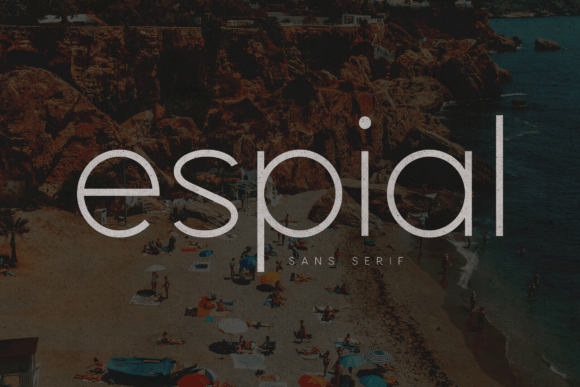
The Perfect Font for Minimalist Designers
Have you ever stared at a blank page, trying to bring your creative vision to life, only to be paralyzed by the endless font options? We’ve all been there. But what if you could tap into a timeless, elegant typographic foundation that effortlessly elevates your designs? Enter Espial Font, a clean and modern sans serif typeface designed specifically for designers who crave simplicity and sophistication.
As a go-to font for branding, logos, editorial layouts, and websites, Espial Font provides a versatile canvas for your creative expression. Whether you’re crafting a modern brand identity or building a stylish website, Espial Font’s clarity and elegance make it the perfect partner in crime. With Espial Font, you can focus on what matters most – bringing your unique vision to life.
Espial Font Key Features
- Font Family: Espial is a sans-serif font family.
- Resolution: Optimized for display at high resolutions, making it suitable for digital screens.
- Font Size: Available in various font sizes, ranging from 8 to 72 points, with precise control over line spacing.
- Unique Characteristics: Espial features a distinctive, modern design with a focus on readability and legibility, making it suitable for a wide range of applications, including digital signage, web design, and print materials.
Designer Review: Espial Font
At first glance, Espial Font seems like a modern and sleek option for any design project. Here are some aspects that I found particularly impressive:
- ✨ Unique letterforms: The font’s distinctive lettering style adds a touch of sophistication to any text-based design.
- ✨ Versatility: Espial Font works well in both body text and display contexts, making it a versatile option for various design applications.
- ✨ Elegant lines: The font’s delicate lines and subtle flourishes evoke a sense of refinement and elegance.
However, I also encountered some limitations that might impact its usability:
- ⚠️ Limited legibility at small sizes: The font’s intricate details can become difficult to read when scaled down, potentially affecting readability.
- ⚠️ Not ideal for complex paragraphs: The font’s letter spacing and word spacing might not work well for longer blocks of text, potentially leading to awkward line breaks.
Overall, Espial Font is a visually appealing choice for designers seeking a unique, modern aesthetic. While it excels in many areas, its limitations should be carefully considered before using it for critical text-based content.
Tips for Getting the Most Out of Espial Font
Use Espial Font for titles, headings, and emphasis in your designs.
Combine Espial Font with other fonts for a unique and eye-catching look.
Experiment with different font sizes, colors, and styles to achieve the desired effect.
Espial Font is suitable for:
Graphic design and branding
Typography-based art and illustrations
Presentations and documents requiring a unique font style
Alternatives to Espial Font
Playfair Display is an elegant and luxurious serif font that is perfect for use in high-end branding, invitations, and magazine covers. It features intricate details and ornate flourishes that add a touch of sophistication to any design. Compared to Espial Font, Playfair Display is more ornate and luxurious, making it suitable for high-end projects.
Didot is a classic serif font that is known for its refined and elegant appearance. It is often used in luxury branding, advertising, and editorial design. Compared to Espial Font, Didot is more refined and less ornate, making it suitable for projects that require a sense of sophistication without being too over-the-top.
Carolyna Pro is a modern serif font that features a unique blend of classic and contemporary elements. It is perfect for use in branding, packaging, and editorial design. Compared to Espial Font, Carolyna Pro is more modern and versatile, making it suitable for a wide range of projects and design styles.
Playfair Display SC
Playfair Display SC is a condensed version of the Playfair Display font, making it perfect for use in headings and titles where space is limited. It features the same elegant and luxurious details as the original font, but with a more compact design. Compared to Espial Font, Playfair Display SC is more condensed and suitable for use in headings and titles.